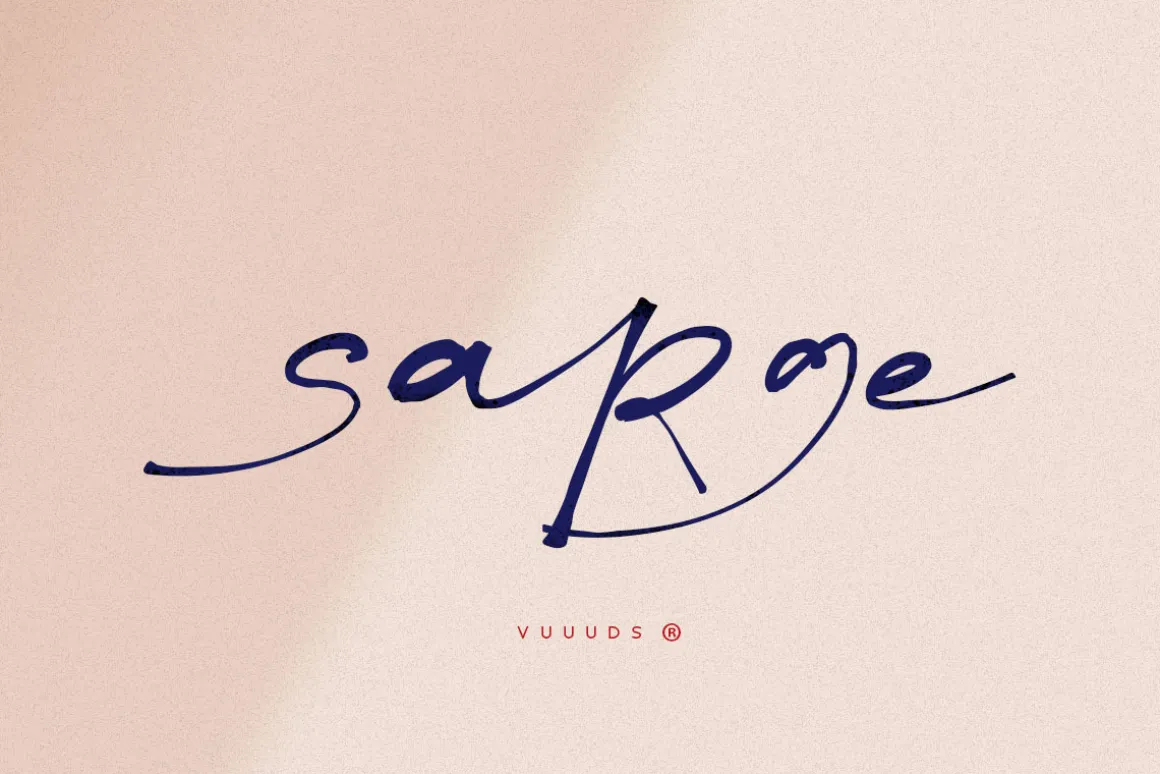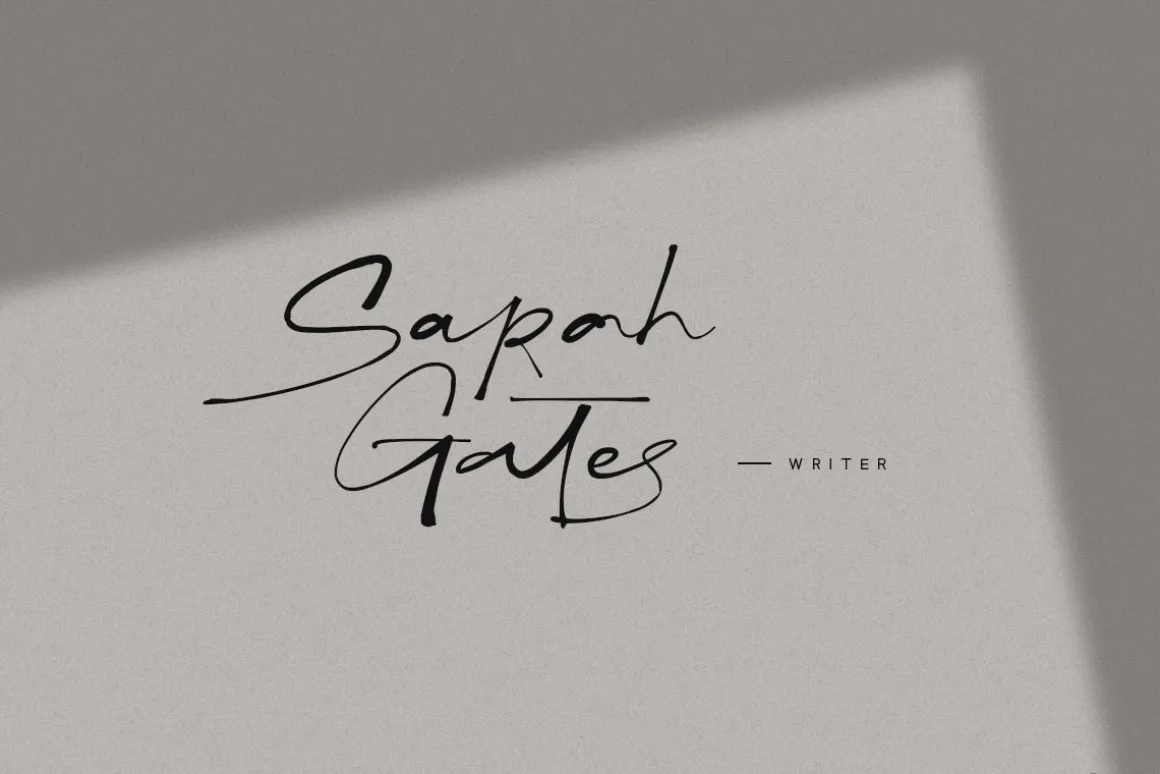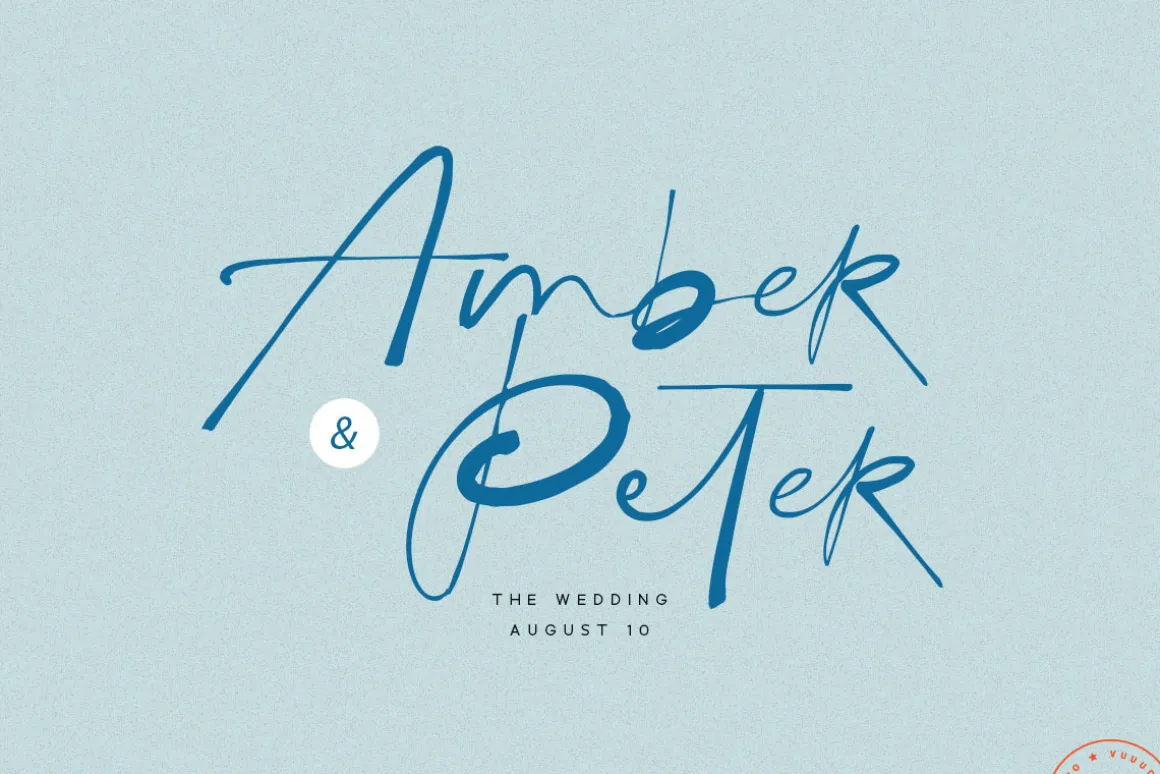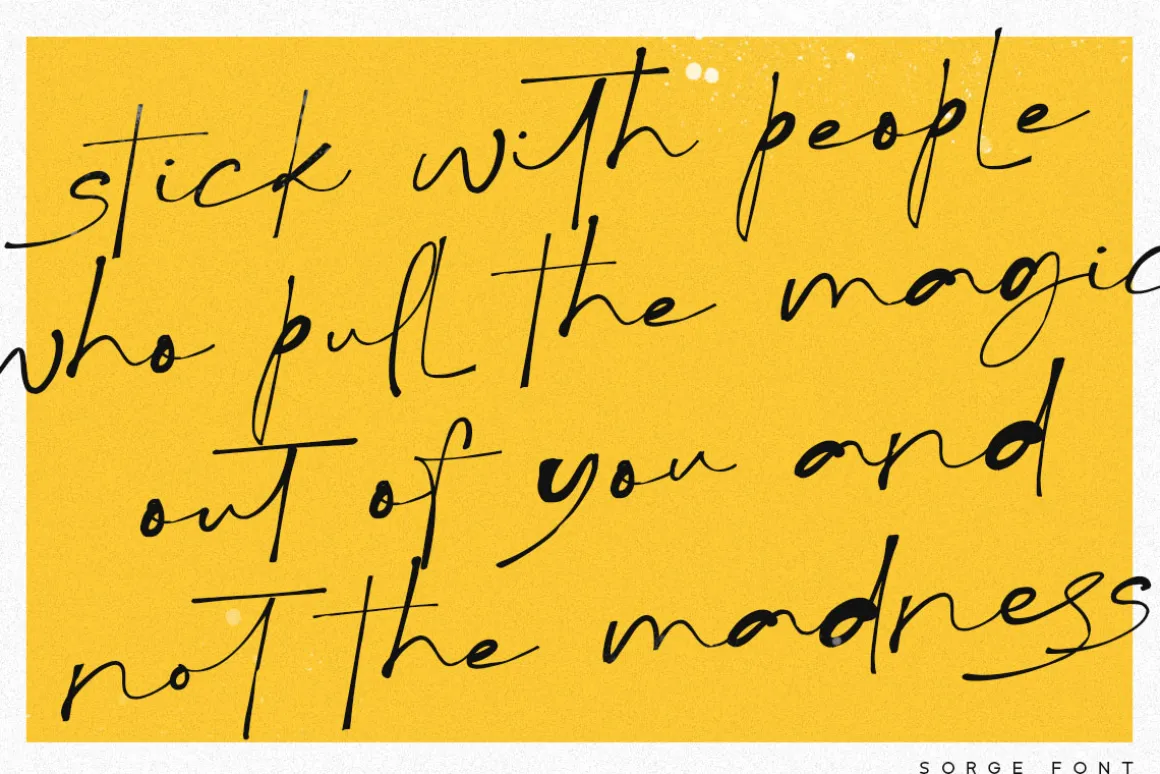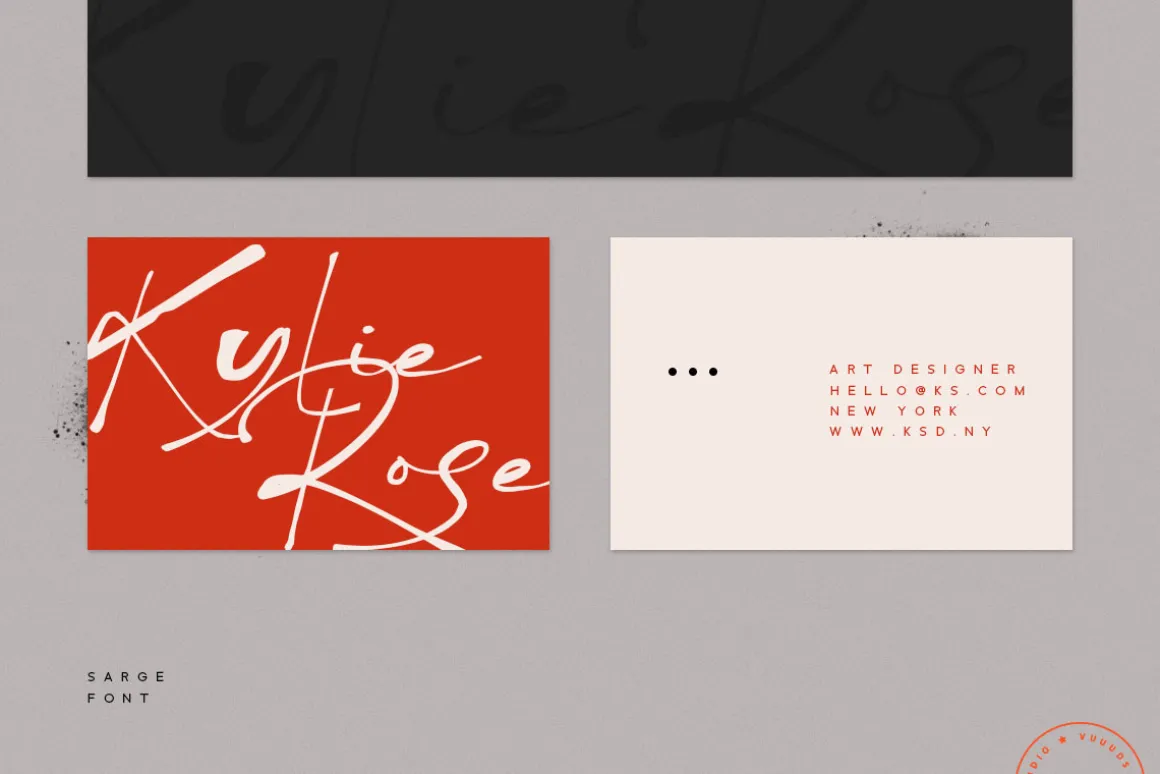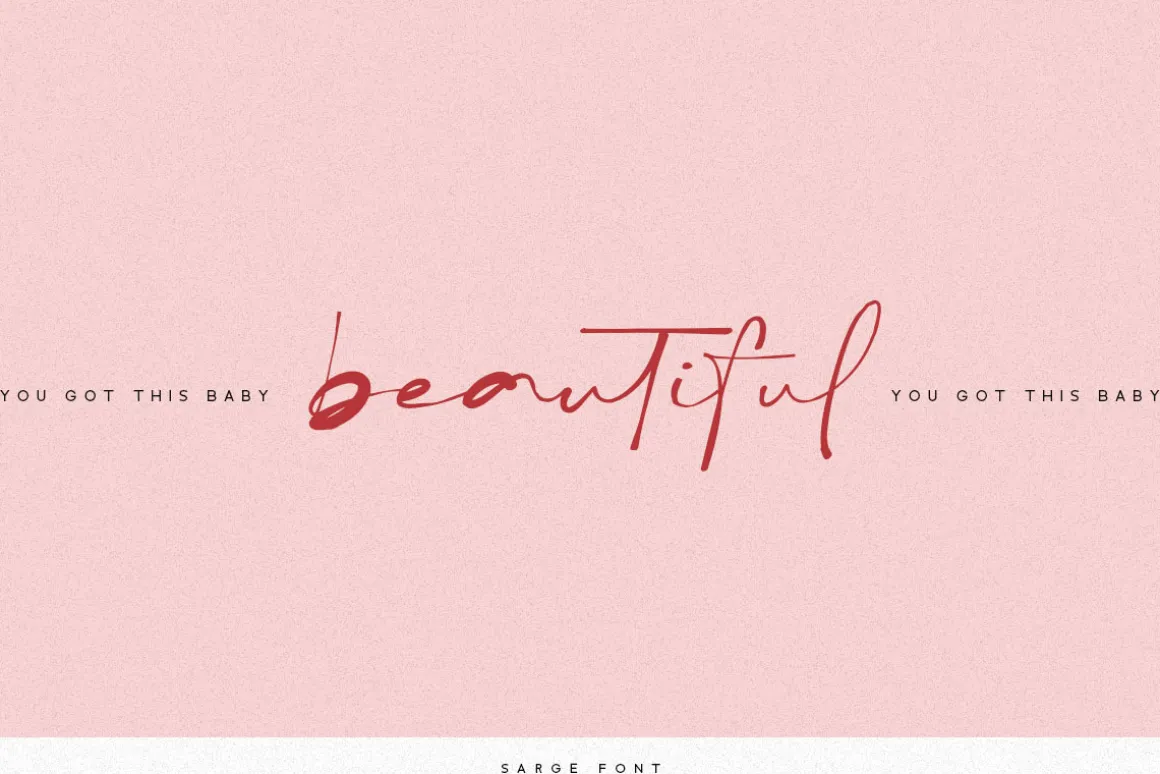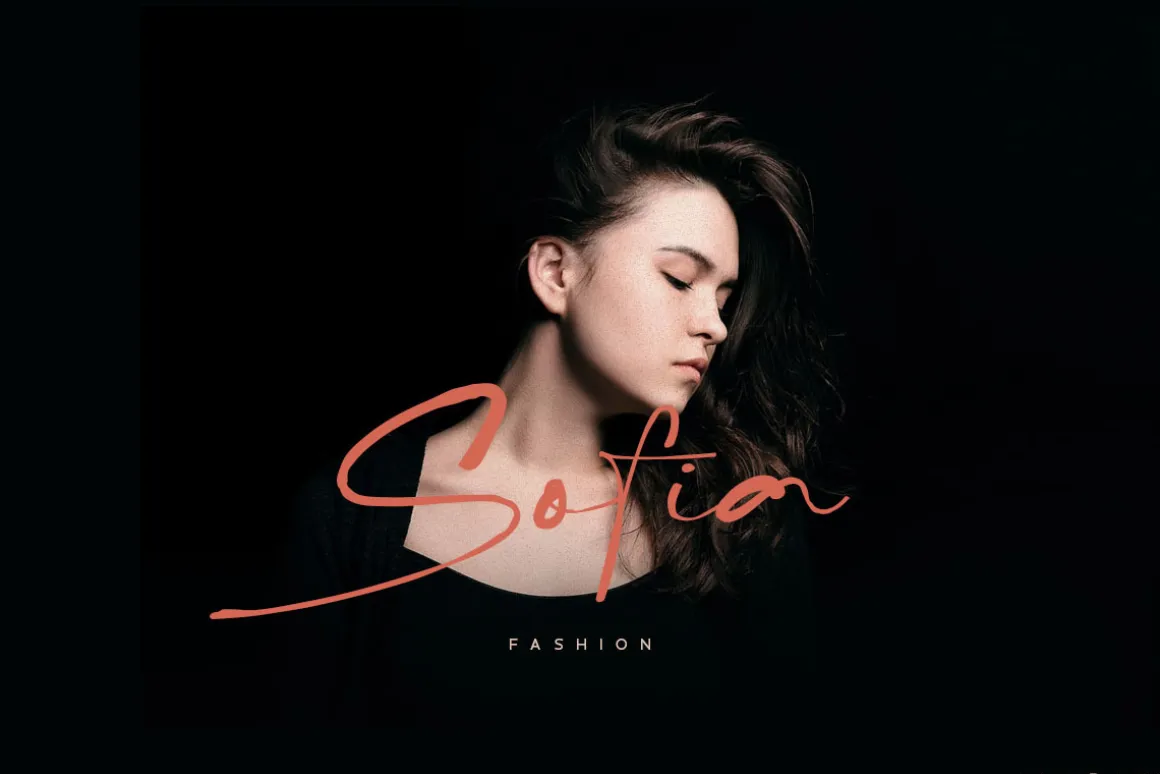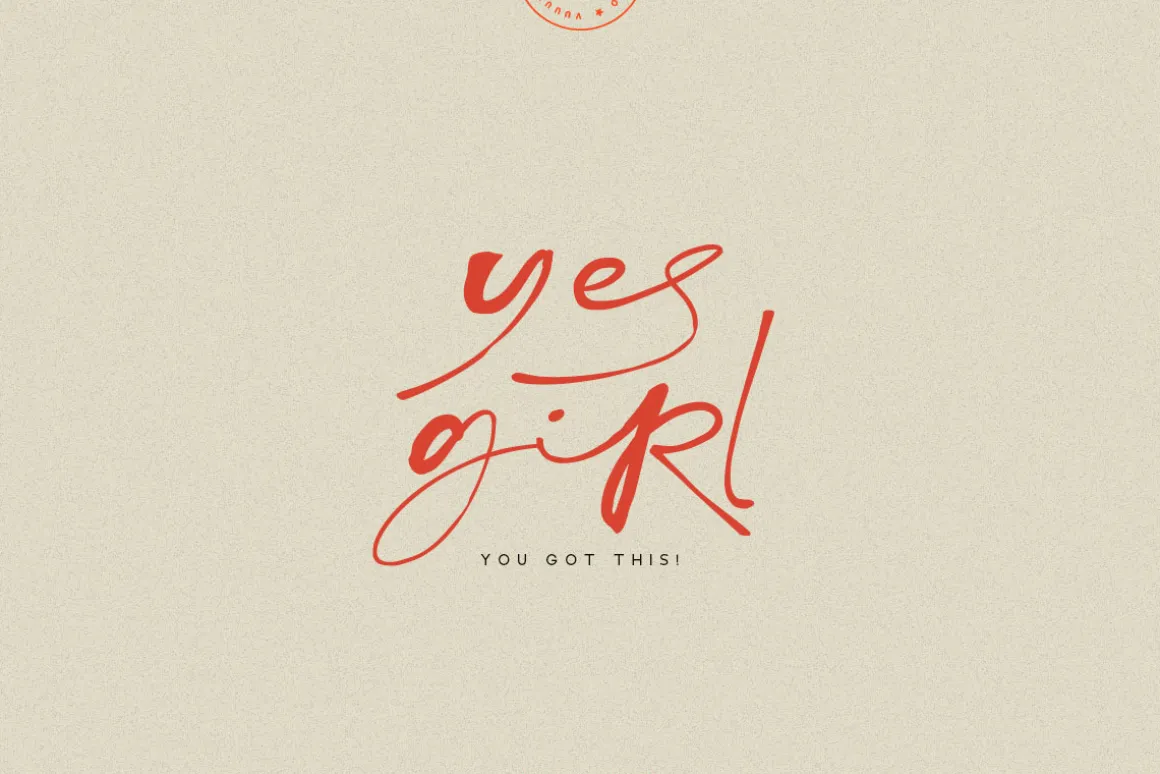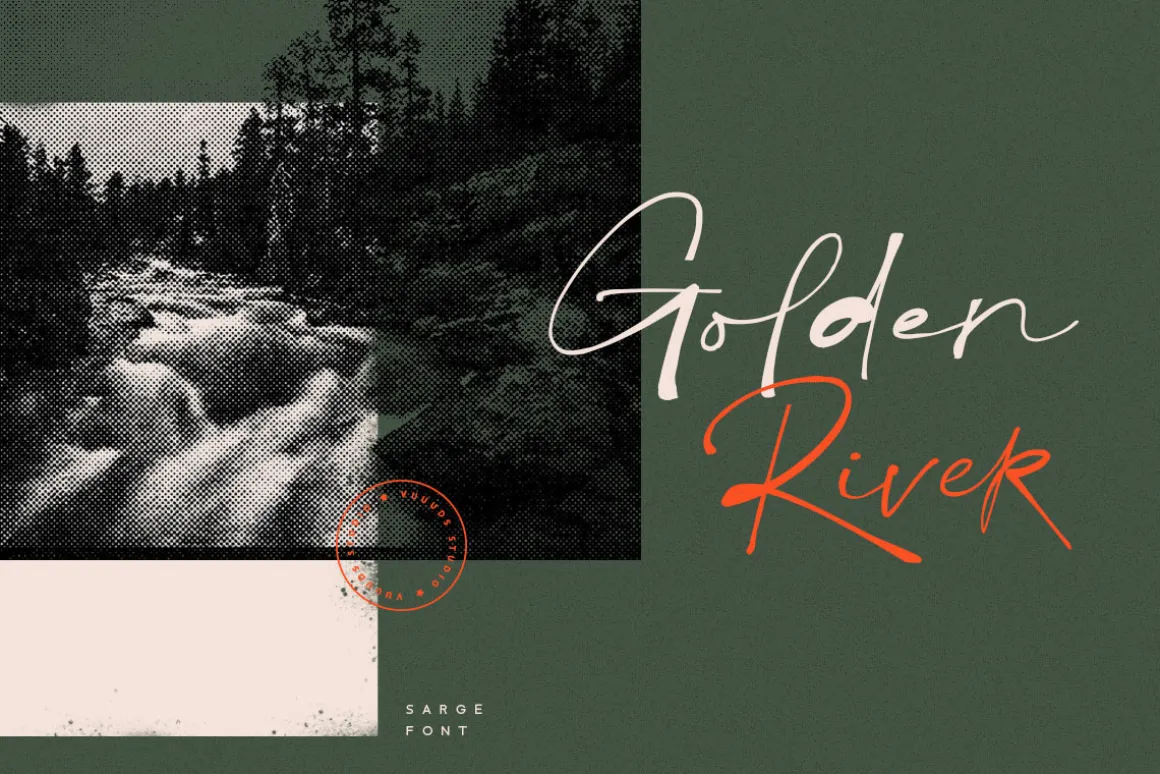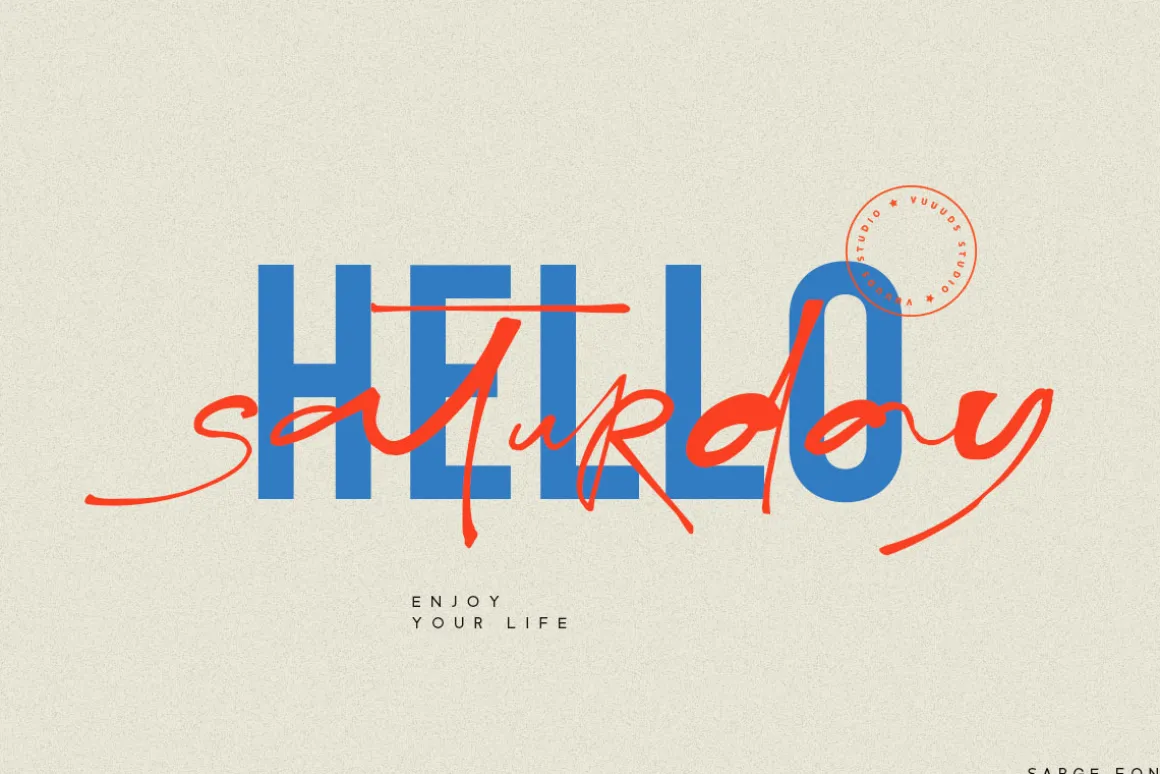
Sarge is modern script font, every single letters have been carefully crafted to make your text looks beautiful. With modern script style this font will perfect for many different project ex: book, children book, photography, watermark, quotes, blog header, poster, wedding, branding, logo, fashion, apparel, letter, invitation, stationery, etc.
Foreign languages support: ÀÁÂÃÄÅÆÇÈÉÊËÌÍÎÏÐÑÒÓÔÕÖØÙÚÛÜÝßàáâãäåæçèéêëìíîïðñòóôõöøùúûüýÿ